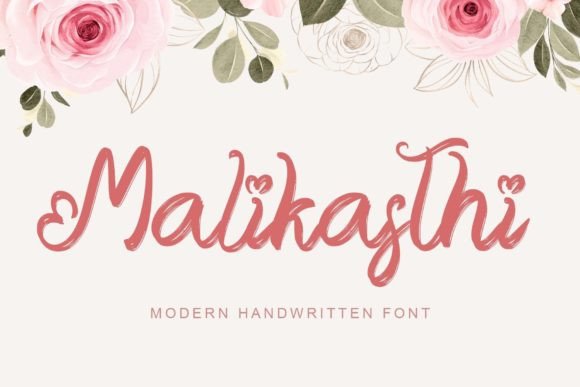
Unleash your creativity and make a lasting impression with "Malikasthi", the captivating script font that adds a touch of elegance and charm to your designs. This meticulously crafted font, brought to life by the talented yogaletter6, will elevate your projects to new heights.
With its graceful strokes and stylish curves, "Malikasthi" evokes a sense of sophistication and allure that's perfect for creating stunning logos, eye-catching posters, heartfelt wedding invitations, and personalized greeting cards. Its multilingual support makes it a versatile choice for reaching a global audience, while its compatibility with various software programs ensures seamless integration into your creative workflow.
Step into a world of endless possibilities with "Malikasthi". Its versatility shines in the realm of branding, adding a touch of distinction to business cards, letterheads, and marketing materials. Create captivating stickers and banners that leave an indelible mark on your customers, and design stunning posters that demand attention.
Dive into the world of "Malikasthi" and let your imagination soar. Create unique and heartfelt valentines that convey your love in a truly special way, or embrace the joy of back-to-school with personalized stationery that sparks excitement and creativity. This font is your gateway to transforming the ordinary into the extraordinary, making every project a work of art.
"Malikasthi" is not just a font; it's an expression of your individuality, a reflection of your passion, and a testament to your creativity. Embrace its allure and watch as it captivates the hearts of your audience, leaving a lasting impression that speaks volumes.